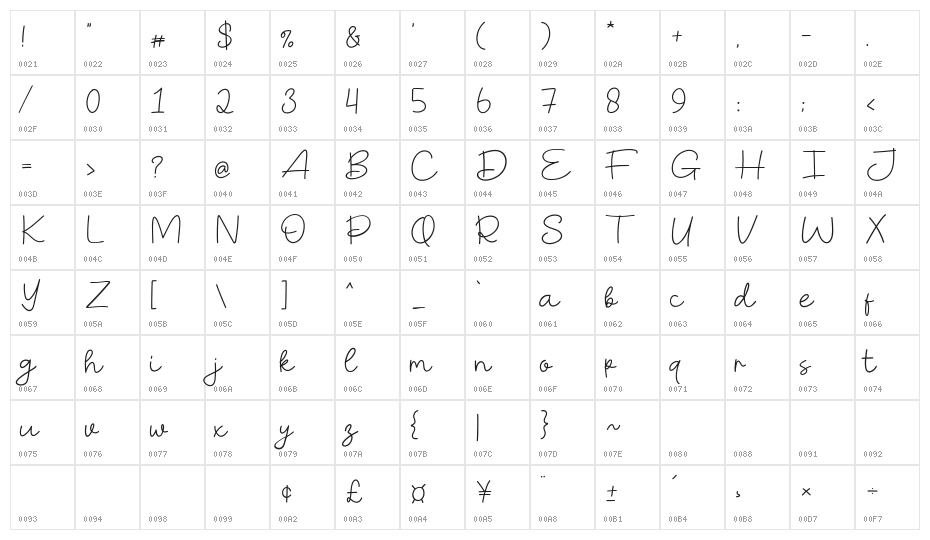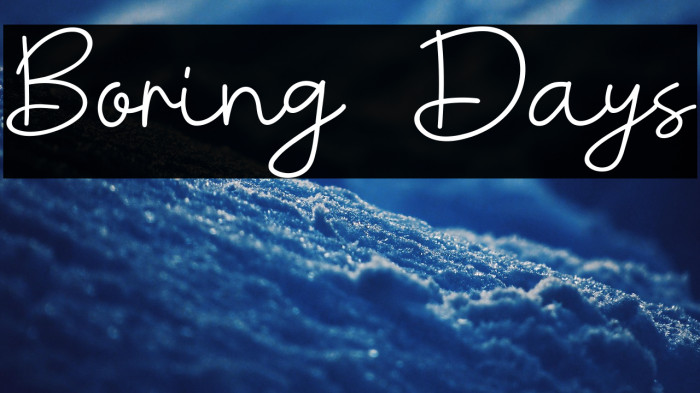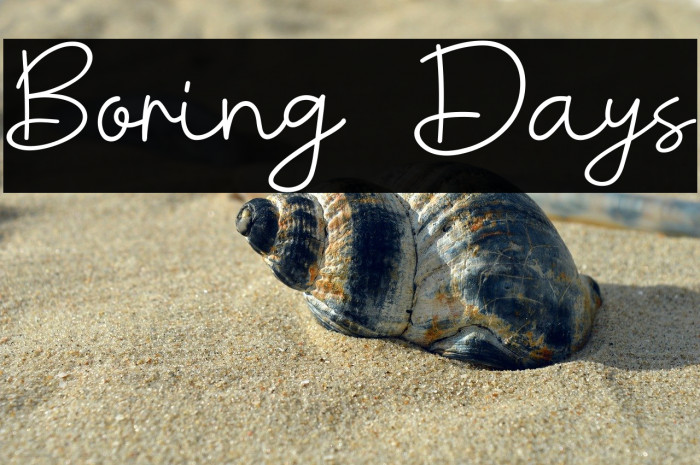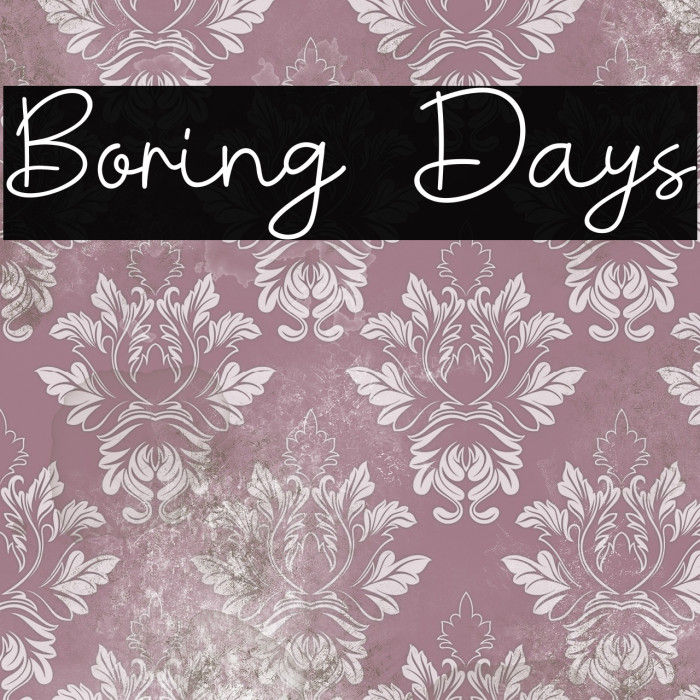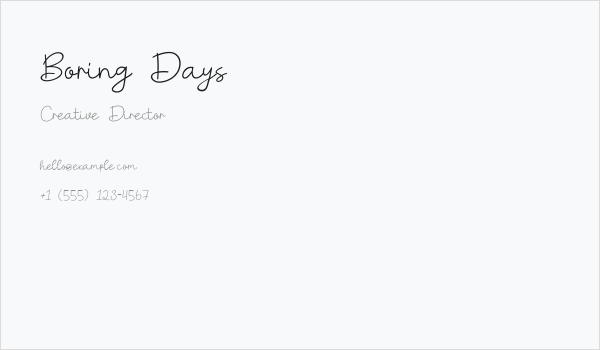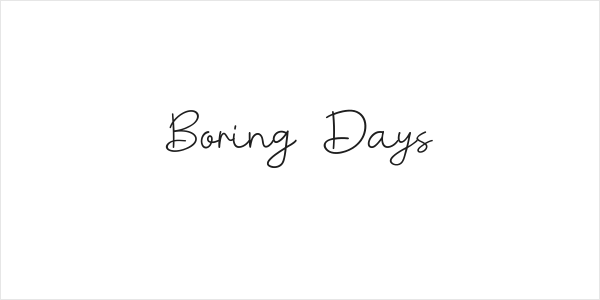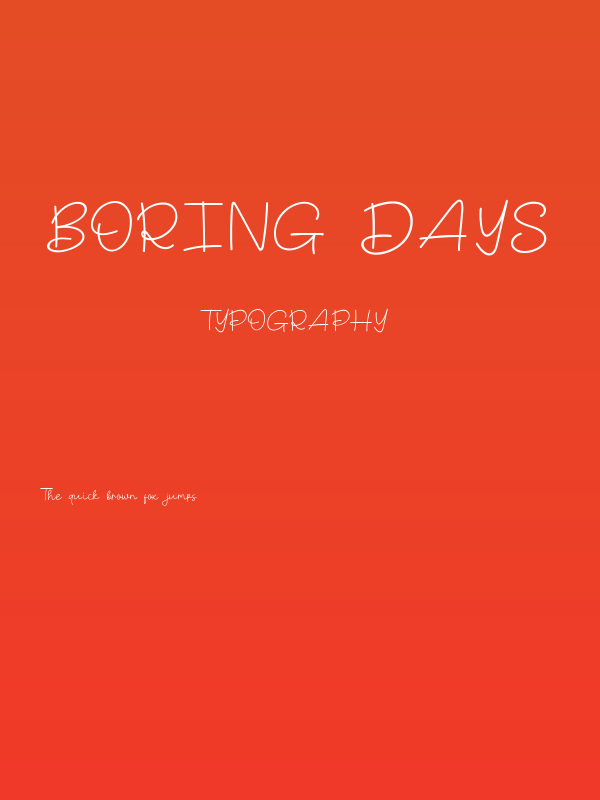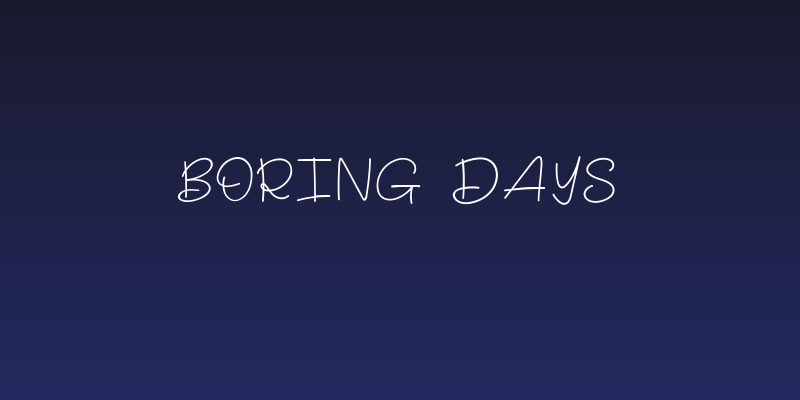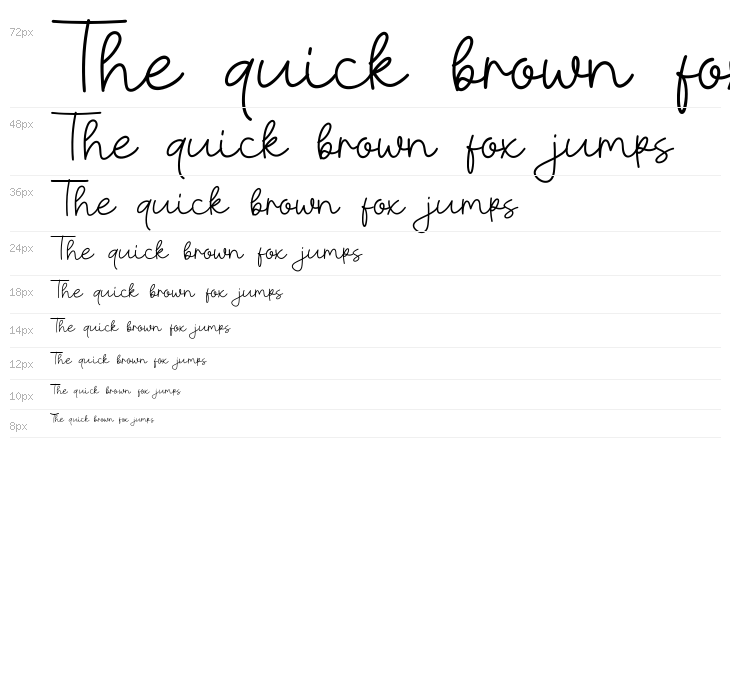
Boring Days Font
| Stile generale | Casual, Playful |
| Caso d'uso | Headlines, Logos, Invitations |
| Progetti proposti | Ideal for greeting cards, invitations, creative branding, and personal projects. |